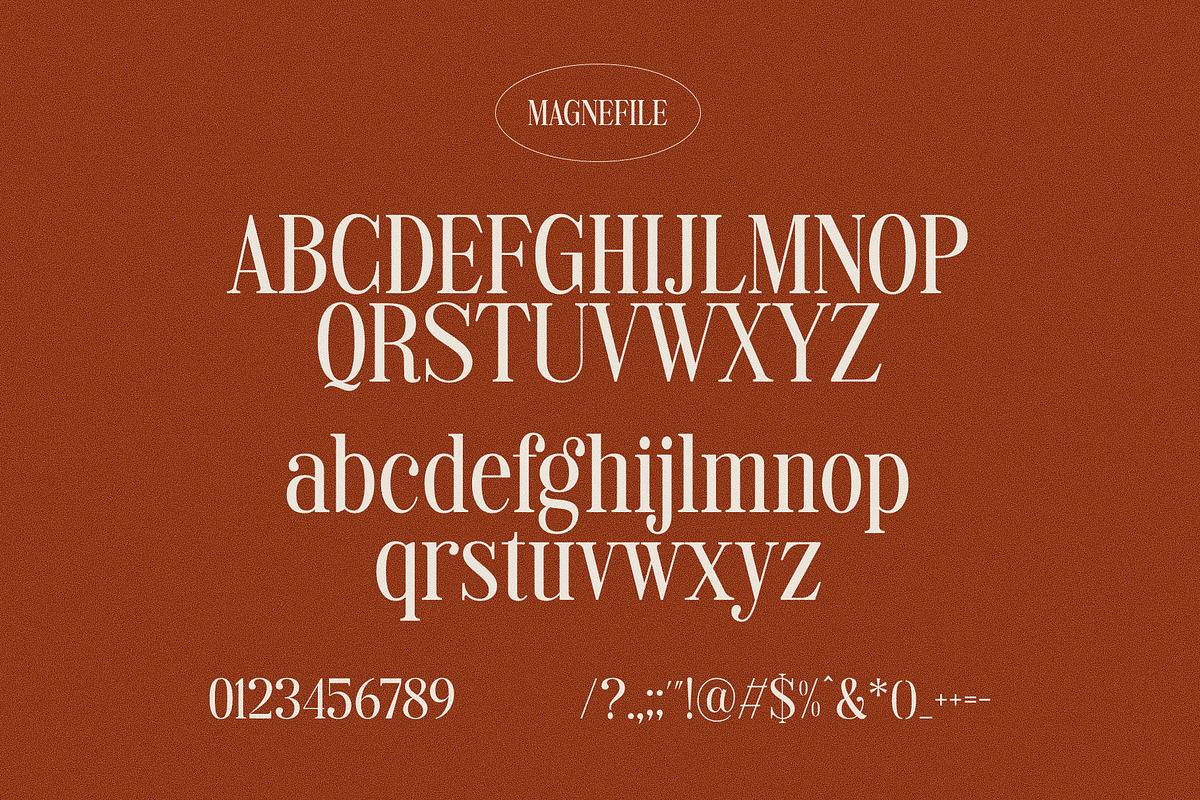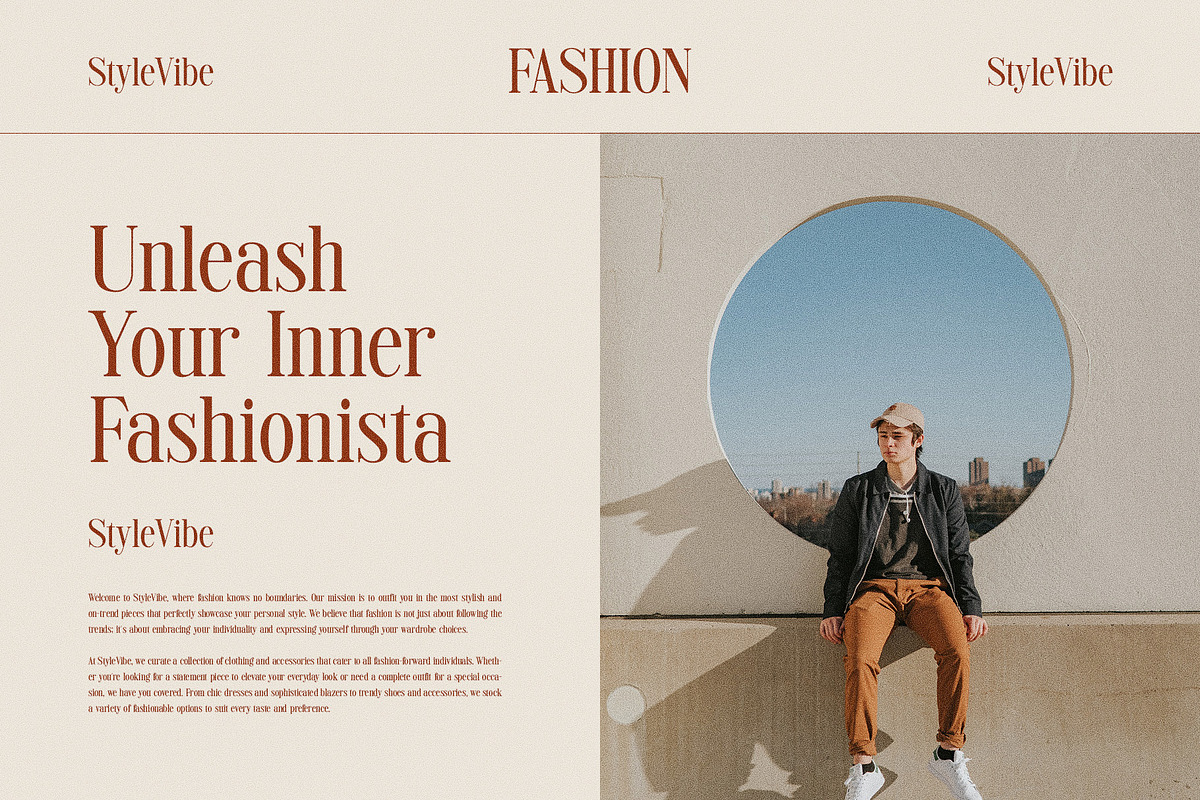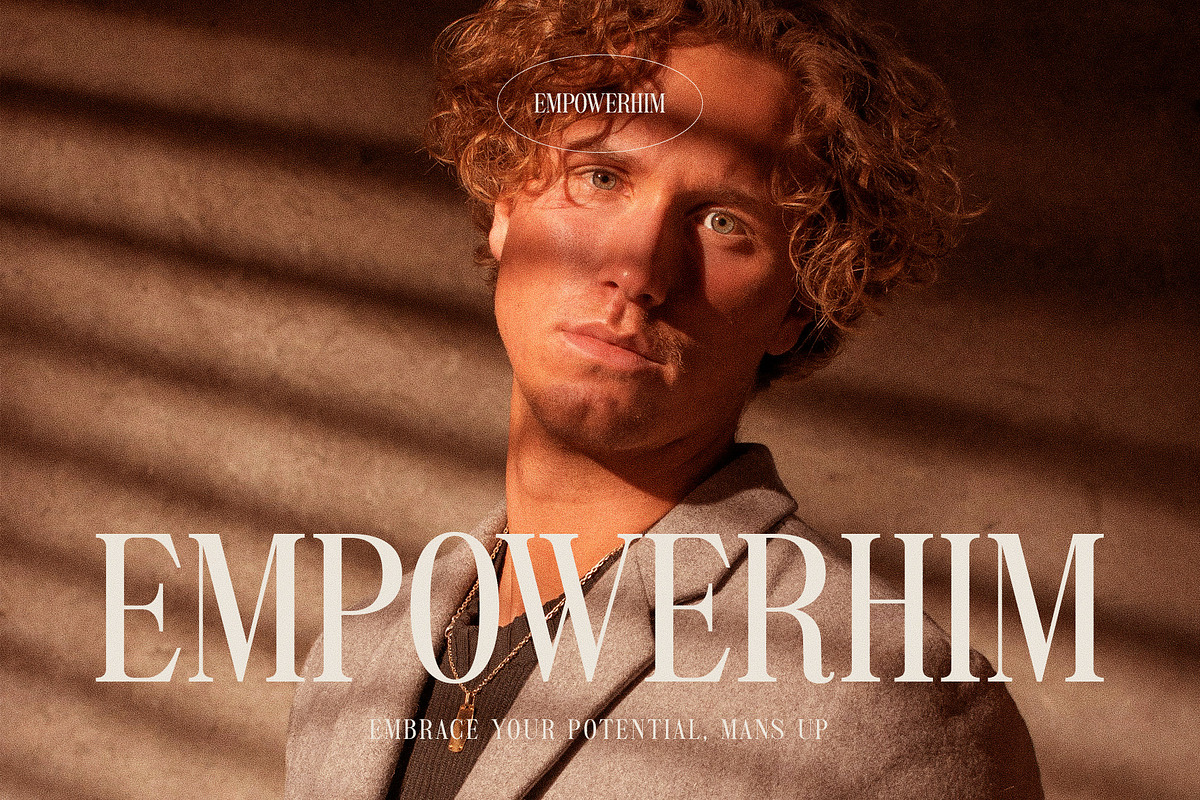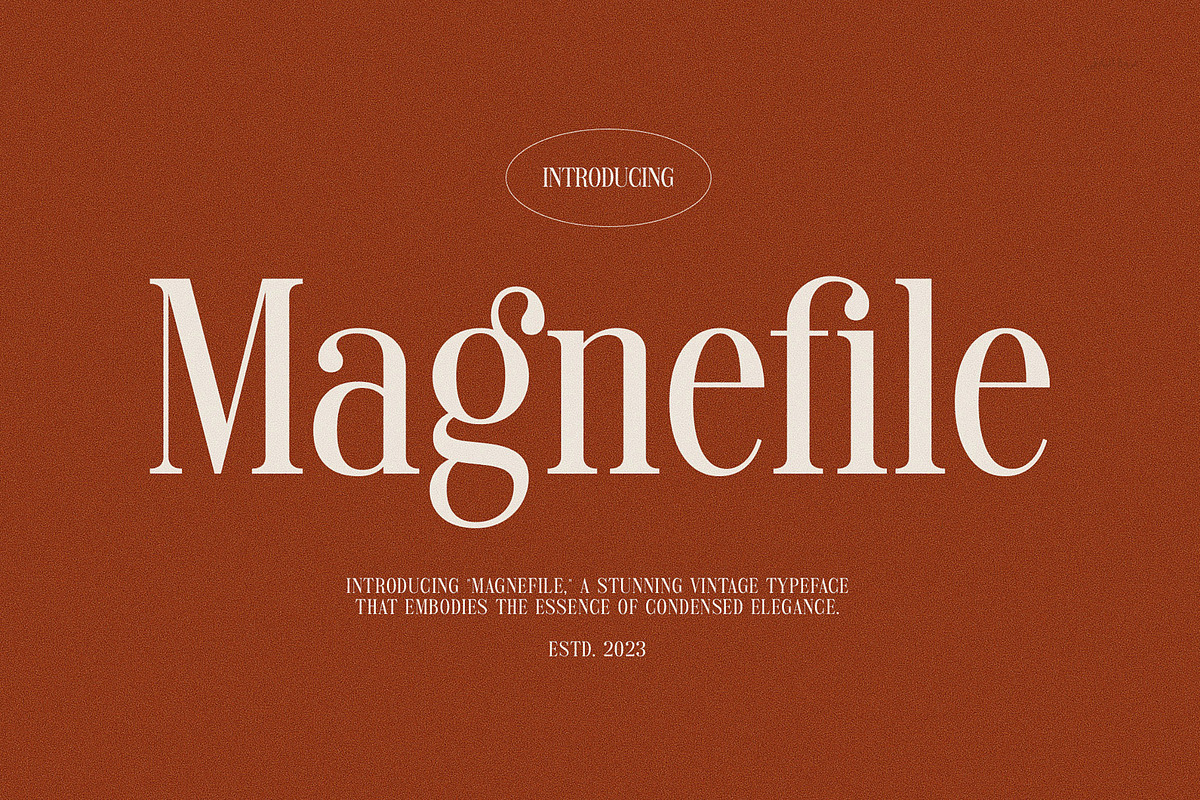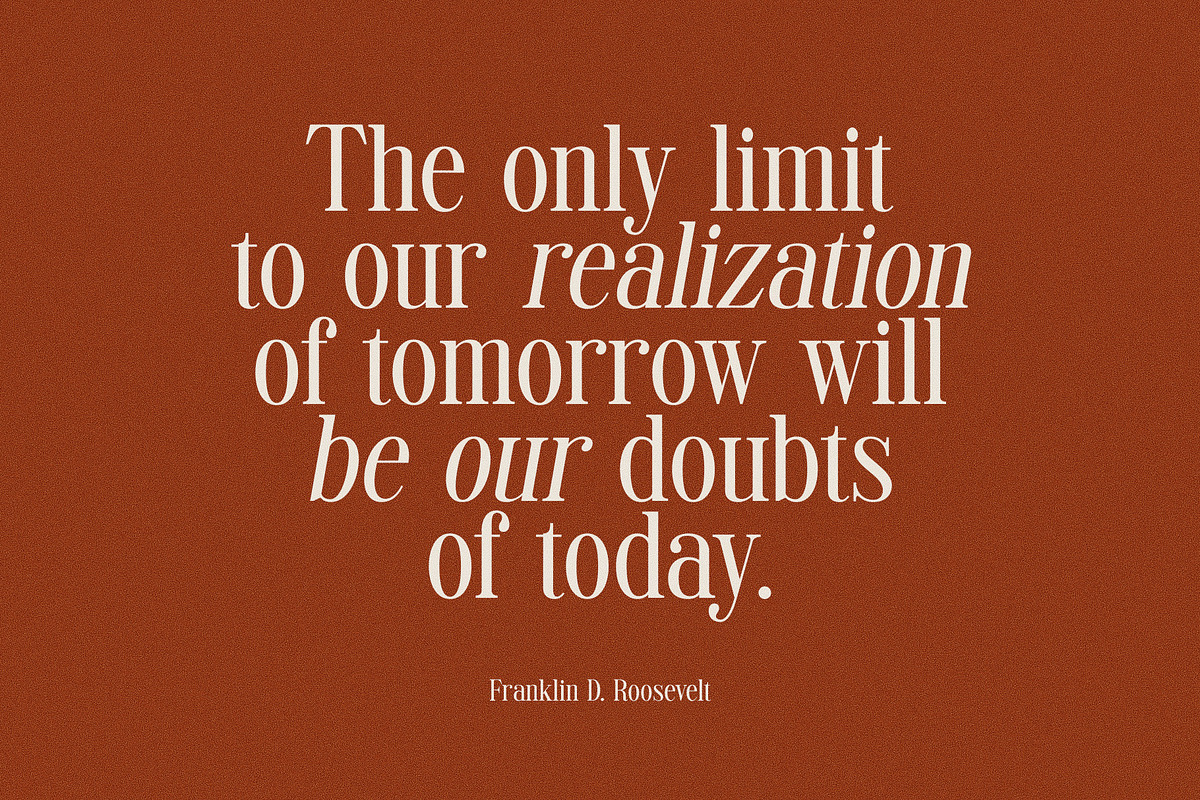
Magnefile - Classy & Stylish Serif
Introducing our new Magnefile, modern serif font with elegant style this is perfect for branding, logos, invitation, magazines, product packaging and more.